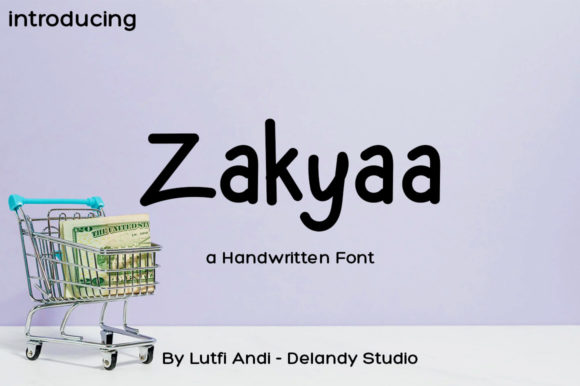
Zakyaa Font
Get ready to be mesmerized by Zakyaa, a charming and playful display font that adds a touch of whimsy to your digital designs. This font is more than just a collection of letters; it's an artistic expression that captures the essence of joyfulness and lightheartedness.
Dive into the world of Zakyaa and experience the magic it brings to your designs. Its unique comic-style characters dance across the screen, creating a visual symphony that captivates the eyes. The carefully crafted curves and lines evoke a sense of playfulness, making it perfect for projects that demand a touch of fun and personality.
As an e-signature font, Zakyaa shines with its effortless elegance. Its clean and concise strokes create a distinctive signature that leaves a lasting impression. It's the perfect choice for adding a personal touch to emails, documents, and digital artworks.
Unlock a world of endless creative possibilities with Zakyaa. Unleash your inner artist and transform your designs into masterpieces. Create brochures that radiate charm, greeting cards that warm hearts, and fashion designs that exude a delightful aura. The possibilities are limitless, just like your imagination.
Embrace Zakyaa, the font that captures the essence of joyfulness and playfulness. Let its enchanting characters add a spark of creativity to your digital creations. Start your design journey today and witness the magic that Zakyaa brings.